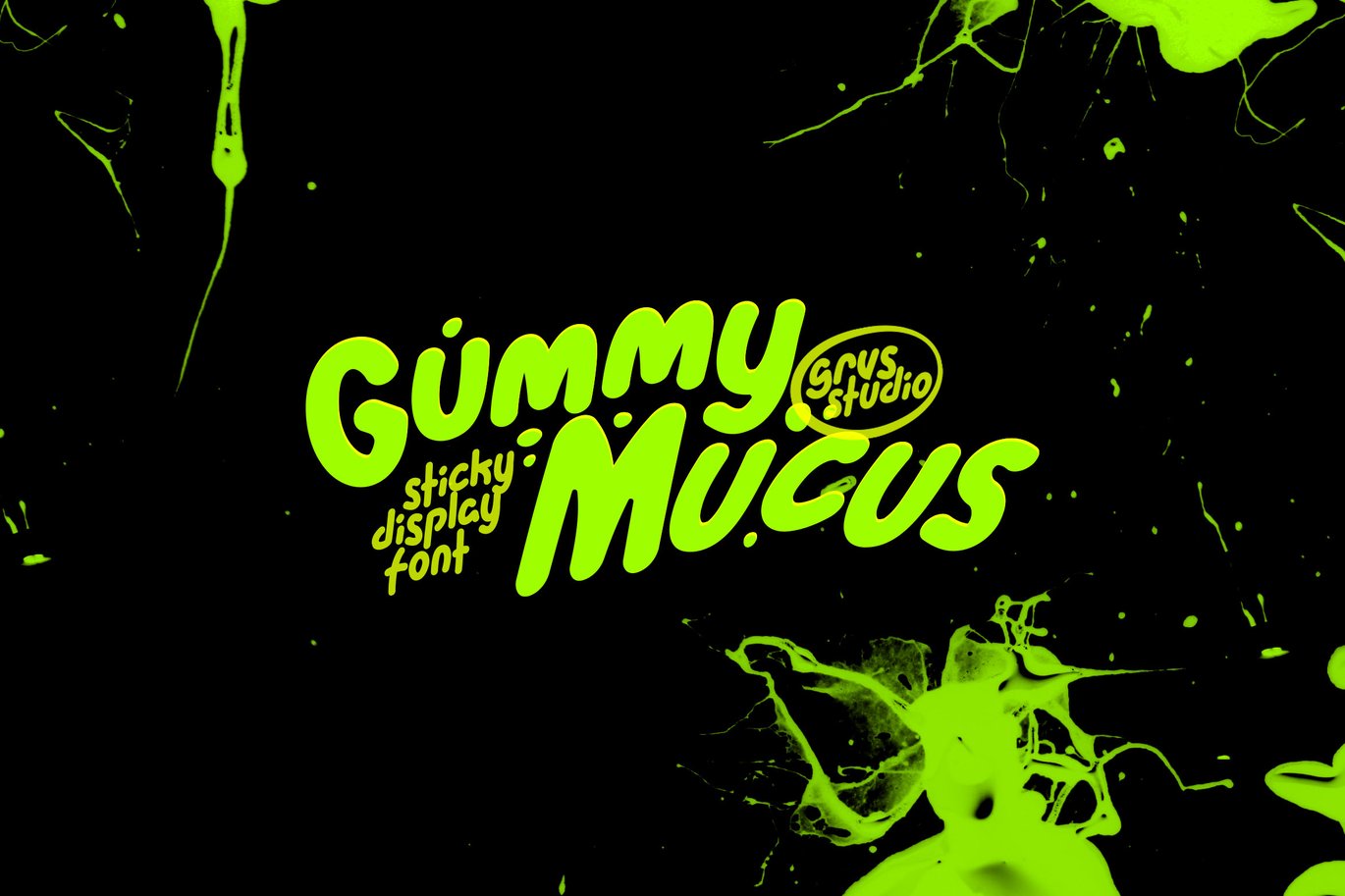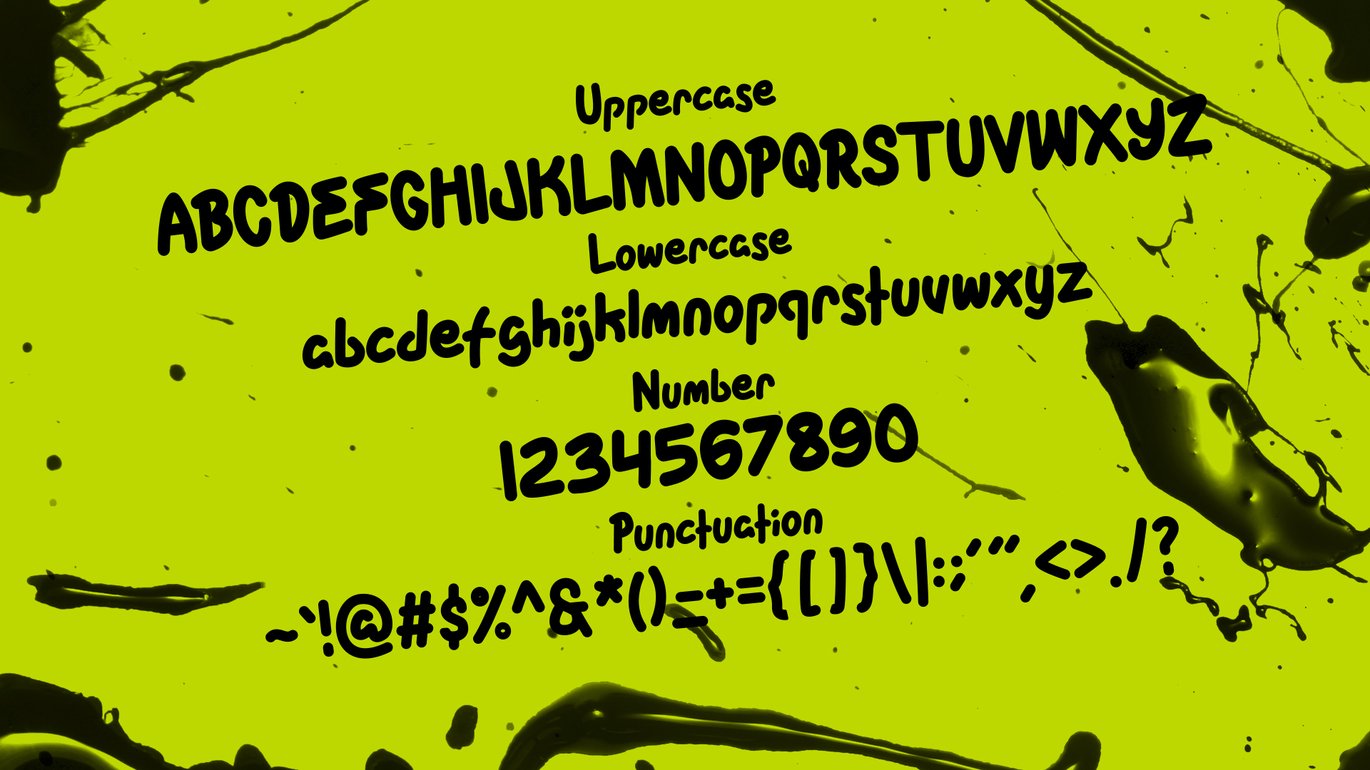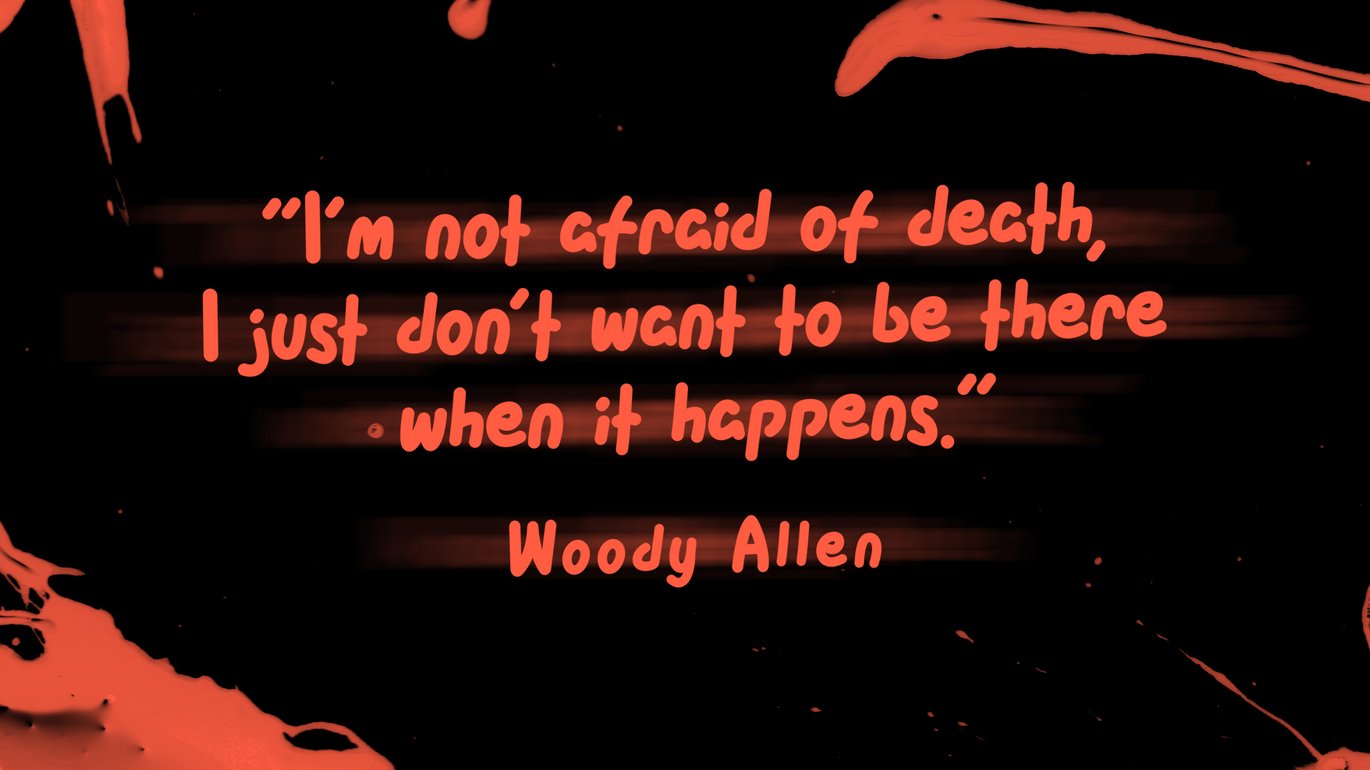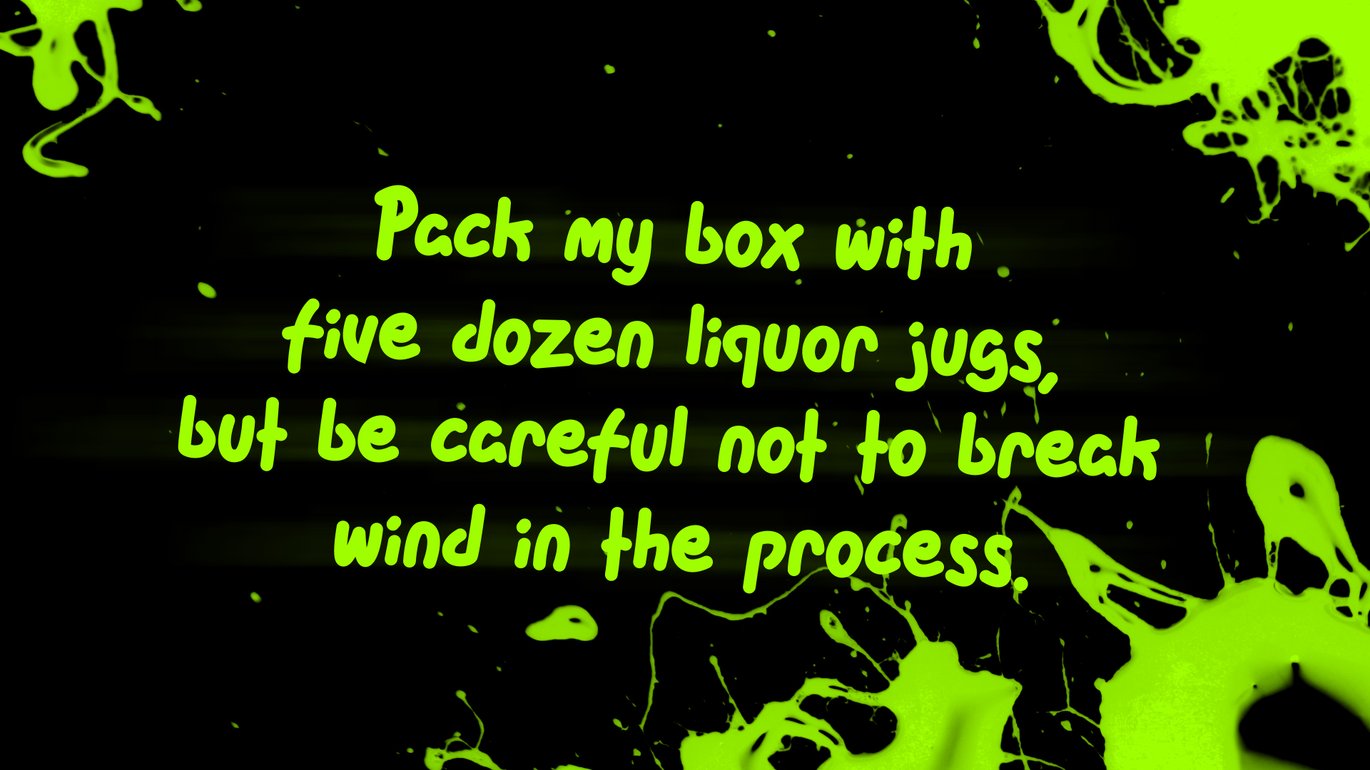
Gummy Mucus Funny Display Font
GRVS Gummy Mucus Funny Display Font is our new item that is suitable for your team logo, or community logo with a Modern and Dynamic theme.